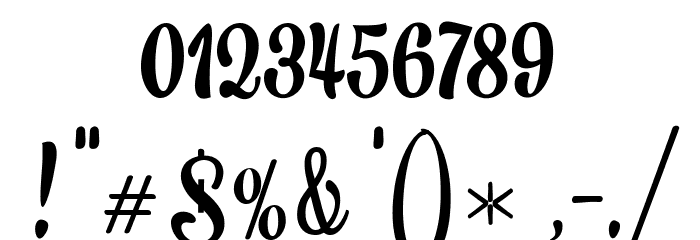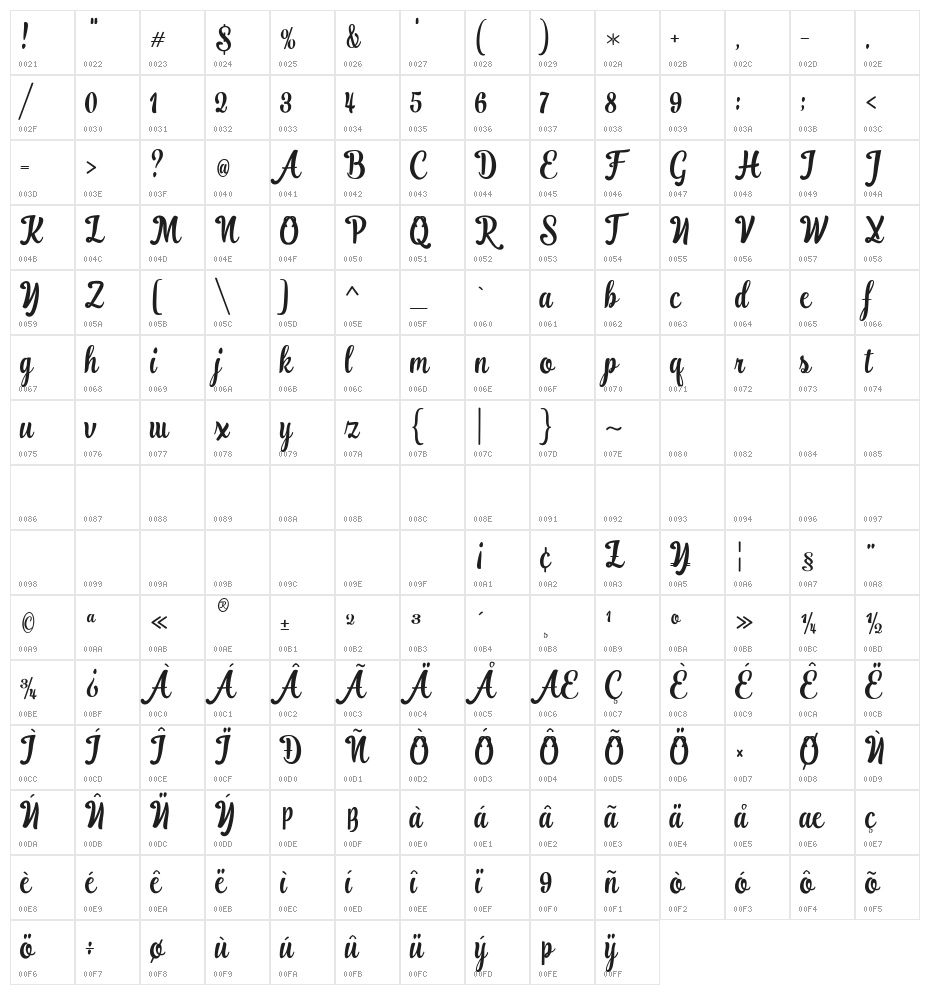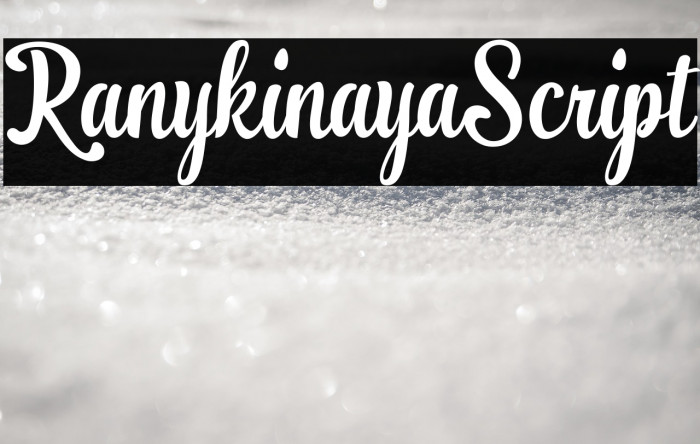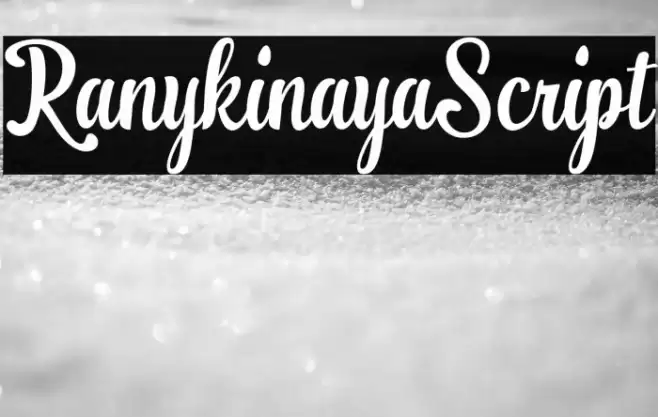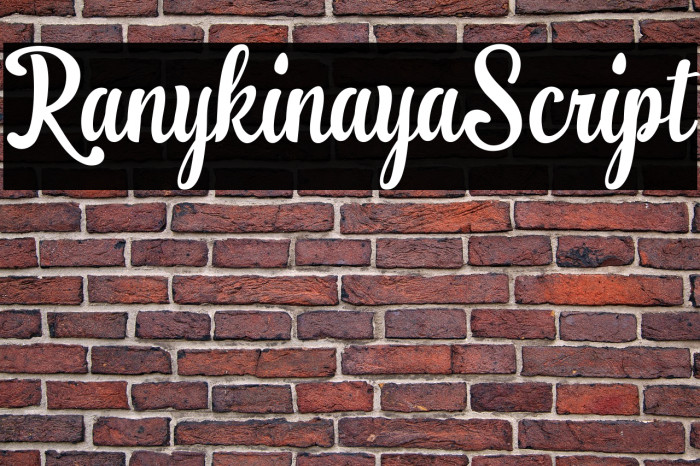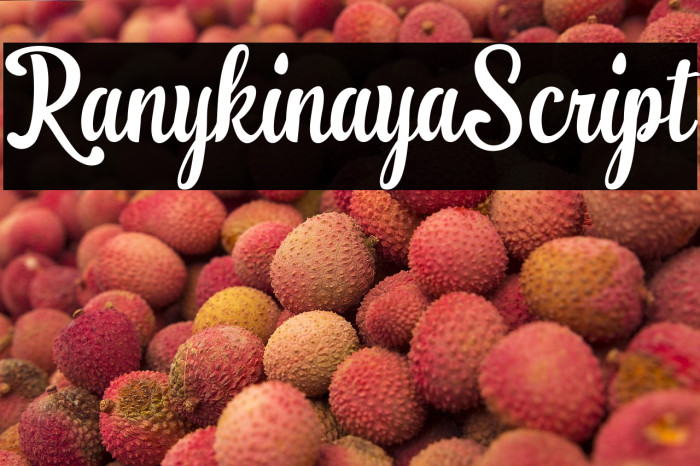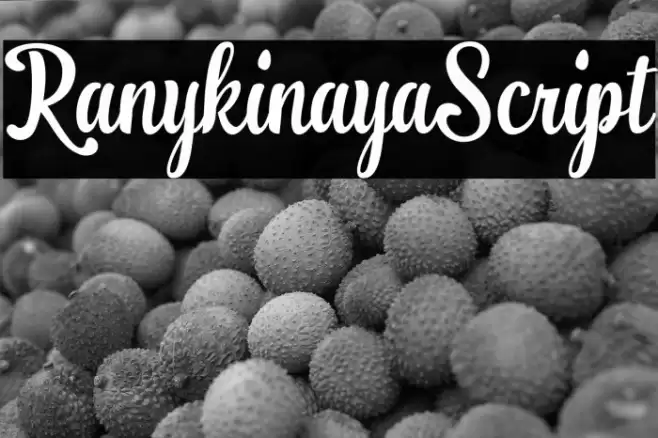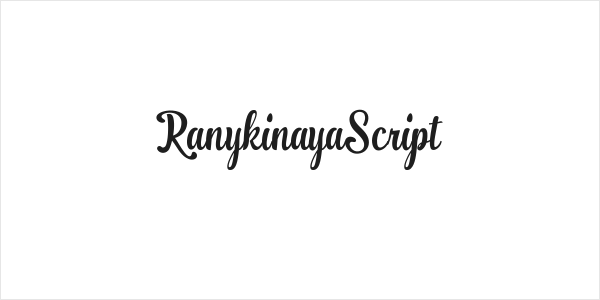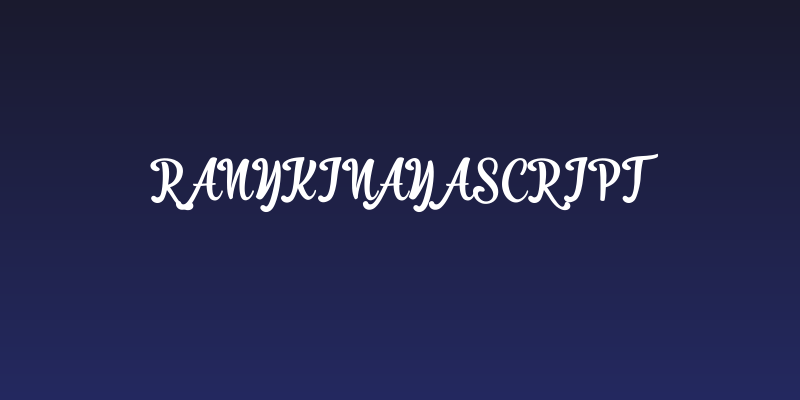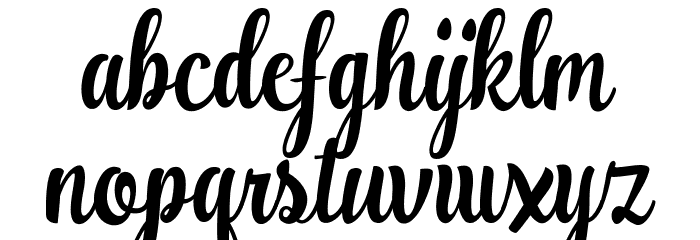
RanykinayaScript Font
RanykinayaScript Description
This script font features elegant, flowing characters with a handwritten style that exudes sophistication and charm. The uppercase letters are bold and slightly slanted, giving a sense of movement and grace. The lowercase letters continue this fluidity with smooth, connected strokes that mimic natural handwriting. Numbers and special characters maintain the same stylistic approach, ensuring consistency across all elements. The font's design is both decorative and functional, making it suitable for a variety of creative projects. Its unique style is perfect for adding a personal touch to any design.